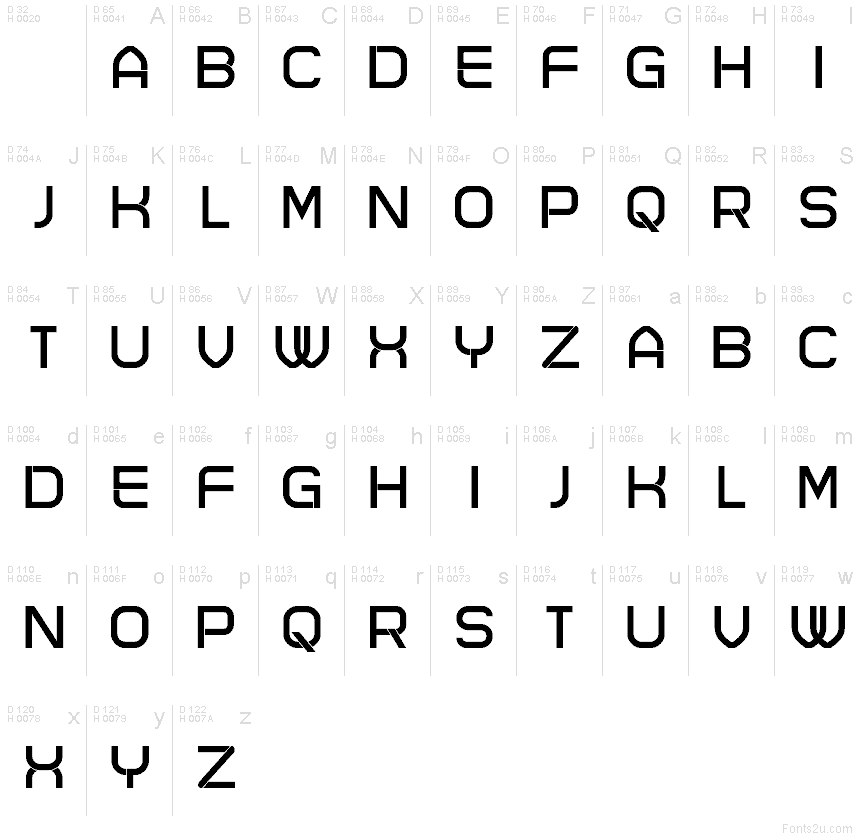
Remix Book Regular
Remix Book font by Vladimir Nikolic is a display typeface with an expanded shape that steals attention instantly. The thick characters are uniquely shaped with mild slants and disproportion while some edges are rounded, and others are angular. This free wide font has great readability in short texts along with a brilliant visual style.